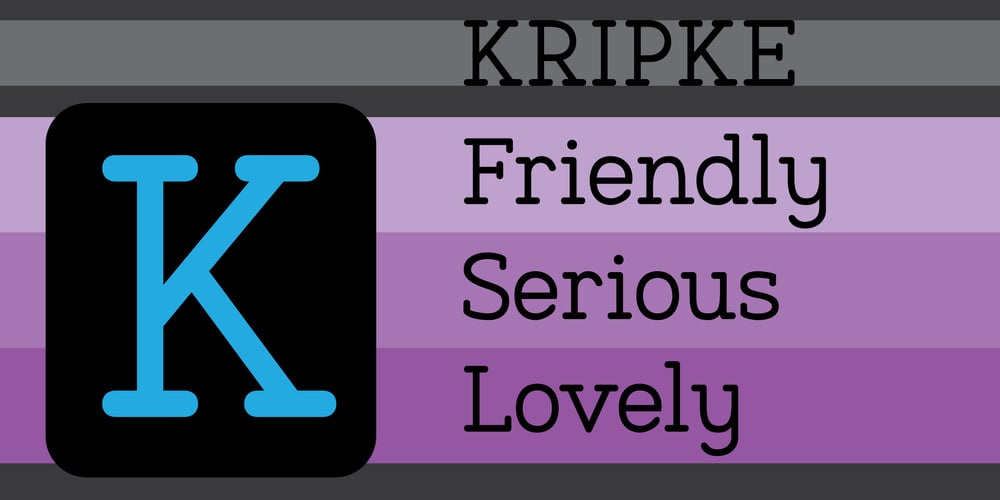
Kripke
Kripke font
Kripke Font Family was designed by Alec Julien and published by Haiku Monkey. Kripke contains 4 styles and family package options. Kripke is a slab serif with rounded corners. It’s readable and soft at small sizes, strong and friendly at large sizes. It’s got a Greek and Cyrillic glyphs, as well as a large complement of accented characters. Try it on your designs!